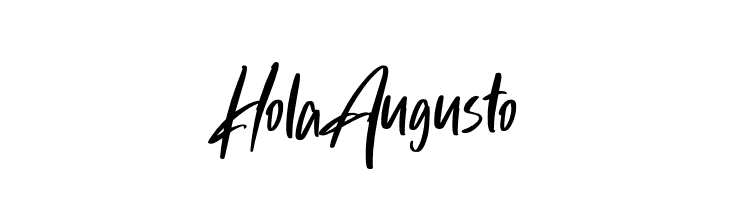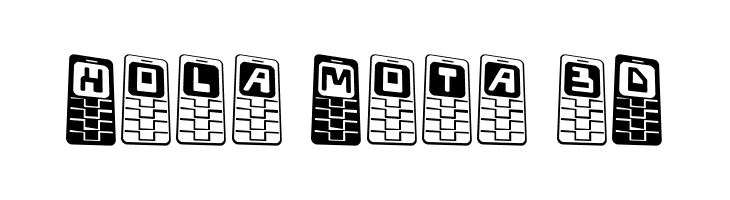
A dynamic, expressive handwritten font with fluid strokes and a playful style.
A bold, geometric font with characters enclosed in rounded rectangles, ideal for digital themes.
A bold, 3D block-style font with a futuristic and playful design.
A bold, 3D font with a retro, digital aesthetic, enclosed in phone-like shapes.
A bold, 3D font with a playful, modern aesthetic resembling a digital keypad.
A bold, geometric font with a digital, tech-inspired design.
A bold, 3D block-style font with a modern and playful design.
A bold, condensed font with a digital, tech-inspired design.
A bold, expanded font with a modern, geometric style enclosed in rectangular frames.
A bold, italic, and decorative font with a digital display style.